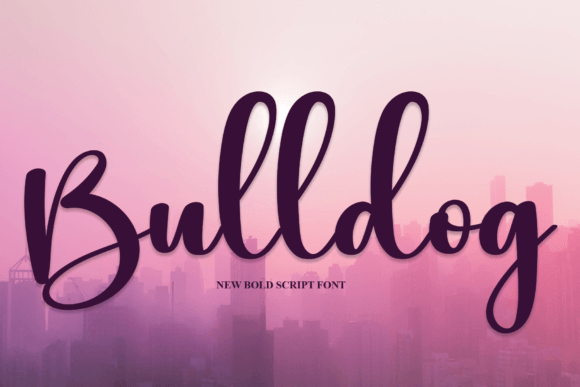
Bulldog Font: The Epitome of Elegance and Playfulness for Your Creative Endeavors
In the realm of digital artistry, the selection of the perfect font is akin to a brushstroke that breathes life into a blank canvas. With the Bulldog Font, a script font family meticulously crafted by andikastudio, experience the allure of a font that captures the essence of sophistication and whimsy.
Immerse yourself in the world of Bulldog Font, where each letter dances across the screen with the grace and fluidity of a ballerina. Its latest style letters, characterized by their sweeping curves and delicate strokes, possess an inherent charm that elevates any project to new heights of visual appeal.
Step into a world where imagination knows no bounds, where Bulldog Font transforms your creative visions into tangible masterpieces. Whether you're designing wall displays that exude a touch of timeless elegance, crafting wedding invitations that whisper sweet nothings of love, or creating social media post logos that demand attention, Bulldog Font is your steadfast companion.
Its versatility extends beyond the digital realm, gracing product packaging, product designs, and labels with a touch of distinction. Let your products speak volumes with the eloquence of Bulldog Font, leaving an indelible mark on your customers' minds.
Bulldog Font's allure is not confined to the conventional; it lends itself effortlessly to photography, adding a layer of depth and emotion to your captured moments. Whether you're a seasoned professional or an aspiring shutterbug, Bulldog Font will elevate your photographs to new heights of artistry.
Let your creativity flow unhindered as you explore the endless possibilities of Bulldog Font. Its watermarks will add a touch of exclusivity to your projects, while its invitations and stationery will leave a lasting impression on your recipients.
Discover the Bulldog Font, your ultimate creative partner, and embark on a journey where imagination and innovation converge. Let your designs shine with the brilliance they deserve, captivating your audience with every stroke of this extraordinary script font.